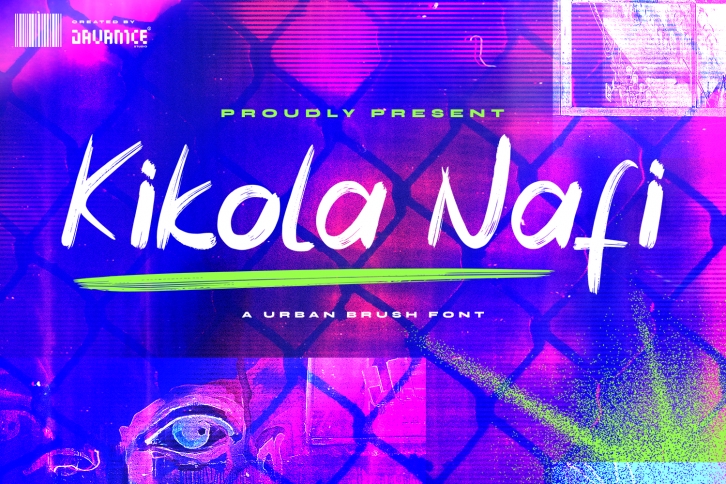
Kikola Nafi is a cool, brushed and adaptable handwritten font. It is perfect for any branding project such as logos, t-shirt printing, creative products, and more. It will look extraordinary in a variety of contexts.